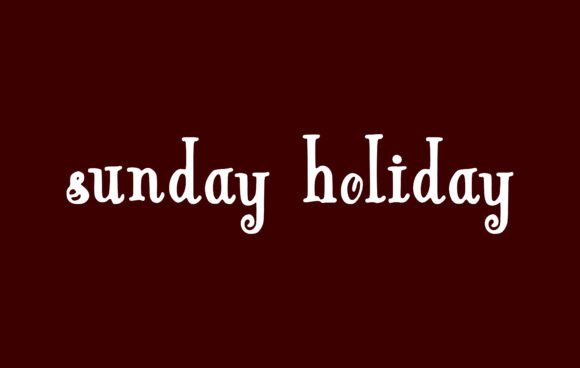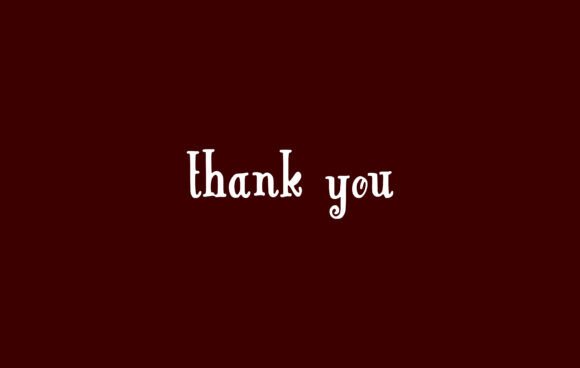
Introduction to Ohio Font
There’s nothing quite like the feeling of a blank canvas, waiting for your creative ideas to come to life. It’s a moment of pure possibility, where anything can happen and the only limit is your imagination. As a designer, you know that finding the right font can make all the difference in bringing your vision to reality.
That’s where Ohio Font comes in – a beautiful, authentic handwritten font that adds a touch of romance to any design project. Whether you’re working on a high-profile branding campaign or a personal creative project, this font is sure to impress. Its legibility and versatility make it a valuable design resource that’s perfect for magazine headlines, social media, and even wedding invitations.
Key Features of Ohio Font
- High-quality design resource for creative projects, ideal for logos, branding, and more.
- Transparent background allows for easy customization and seamless integration into any design.
- Unique, modern design aesthetic with clean lines and a minimalist approach.
- Includes multiple font weights and styles, providing versatility for different design applications.
- Supports various resolutions, making it suitable for use in both print and digital design projects.
Honest Review: Ohio Font
I recently stumbled upon the Ohio Font, and I must say it’s been a game-changer for my creative projects. This font is a great addition to any design resource, offering a high-quality aesthetic that’s perfect for a variety of applications.
What works well for the Ohio Font is its versatility and ease of use. The font is highly legible, making it ideal for body text, while its clean design also lends itself well to headings and titles. The transparent background is another nice touch, allowing the text to blend seamlessly into any background.
Pros:
- Easy to read and use
Cons:
- Not as customizable as some other fonts
- May not be suitable for very small text sizes
Overall, I’m really impressed with the Ohio Font. It’s a solid addition to any designer’s toolkit, and I’d highly recommend it for any creative project that requires a clean and professional look.
Ohio Font is a versatile, high-quality design resource ideal for creative projects. This font features a transparent background, making it a great addition to any design.
Common Use Cases for Ohio Font
Ohio Font is ideal for:
- Creating social media graphics and posters
- Designing presentations and documents
- Adding a professional touch to business materials
Compared to Ohio Font, Futura has a more geometric and futuristic design, making it suitable for projects that require a bold and modern look. While Ohio Font is more versatile, Futura is perfect for designs that need a touch of sophistication and elegance.
Montserrat is a popular sans-serif font that is ideal for creative projects that require a high-quality design resource. It has a clean and modern design, making it perfect for logos, titles, and headings. Montserrat is available for free download and comes with a transparent background, making it easy to use in various design applications.
Compared to Ohio Font, Montserrat has a more condensed design, making it suitable for projects that require a lot of text to be displayed in a small space. While Ohio Font is more versatile, Montserrat is perfect for designs that need a clean and modern look.